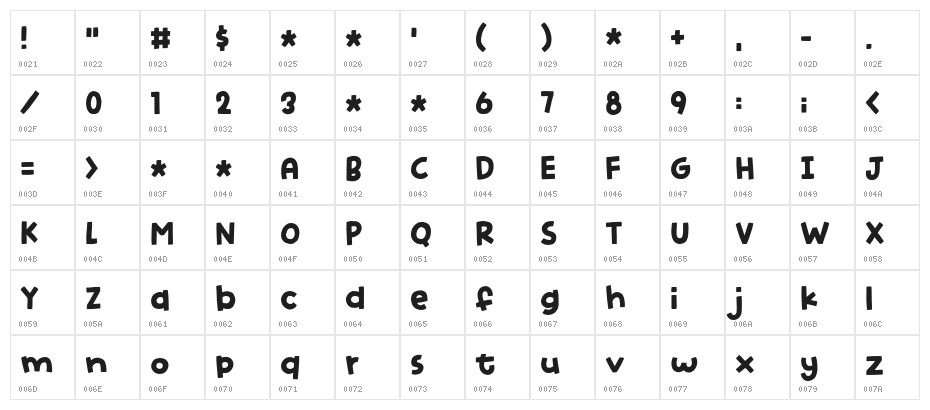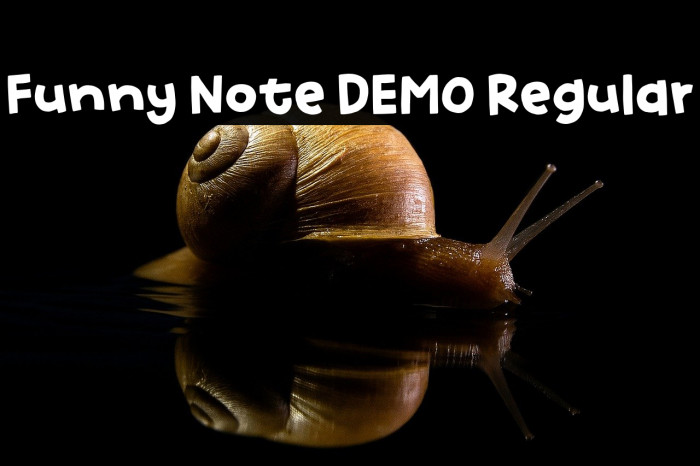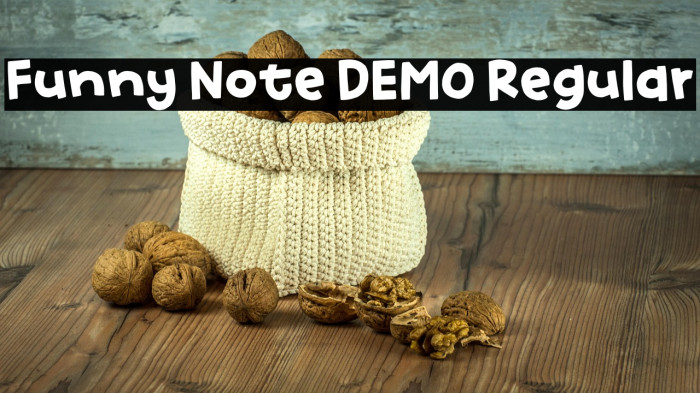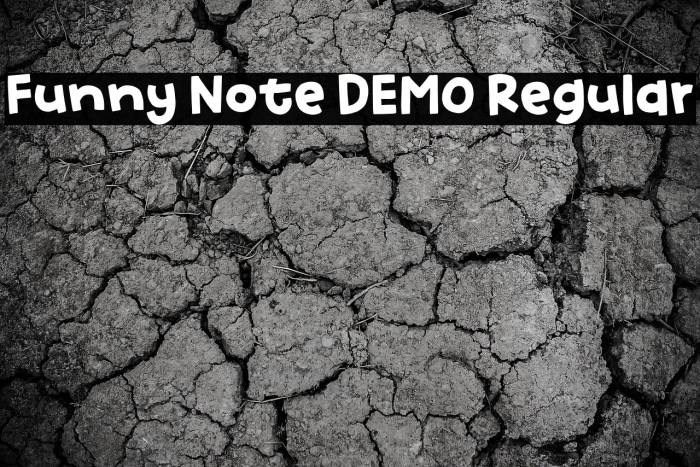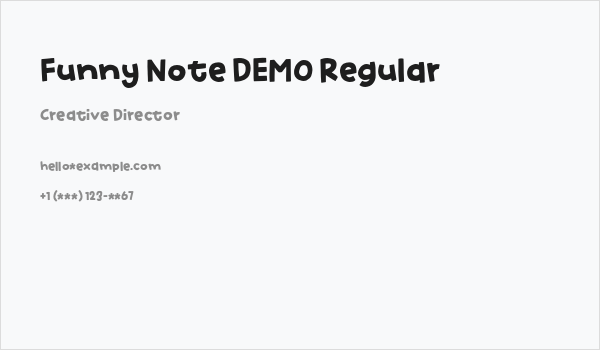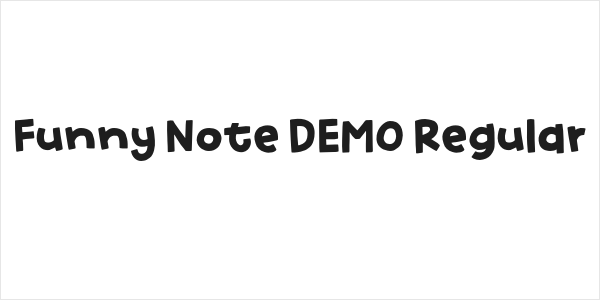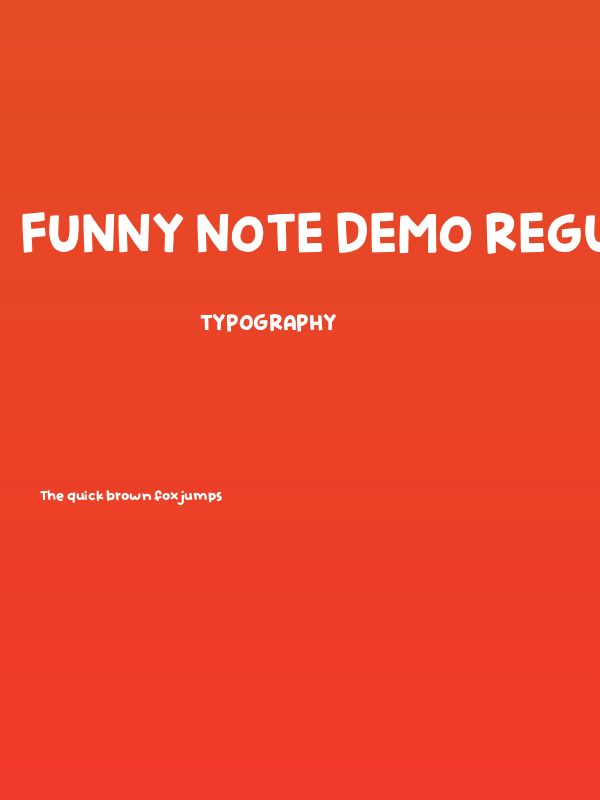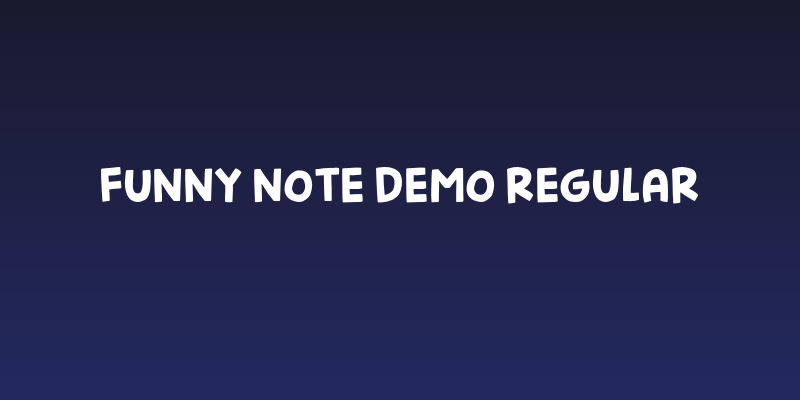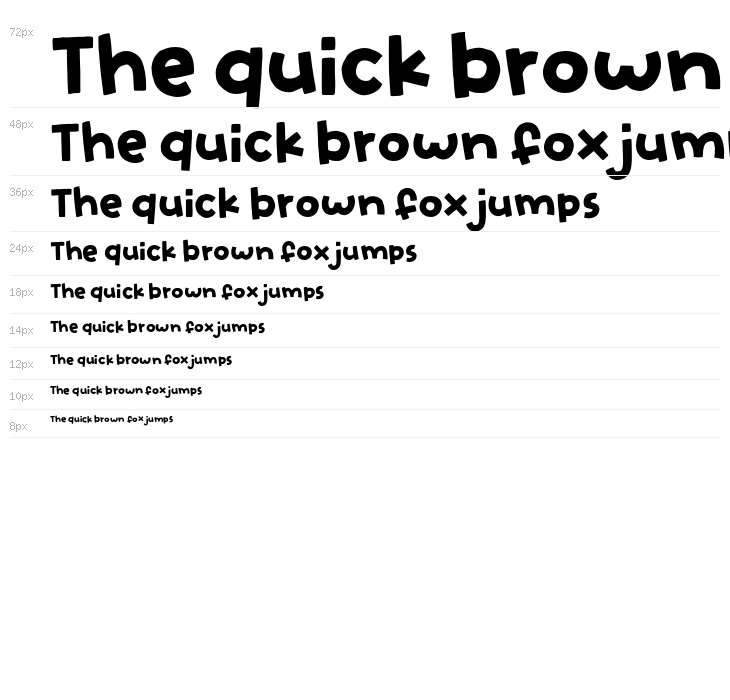
Funny Note DEMO Regular Font
Funny Note DEMO Regular Description
This playful and whimsical font features bold, rounded characters with a hand-drawn aesthetic. The letters have a casual, friendly appearance, making them ideal for informal and fun designs. The uppercase and lowercase letters maintain a consistent style, with slightly exaggerated curves and a lively bounce. Numbers and special characters are equally expressive, adding to the font's overall charm. This font is perfect for projects that require a touch of humor and creativity, such as children's books, comic strips, or playful branding materials.
| Overall Style | Playful |
| Use Case | Headlines, Logos, Informal Text |
| Proposed Projects | Ideal for children's books, comic strips, playful branding, and informal invitations. |